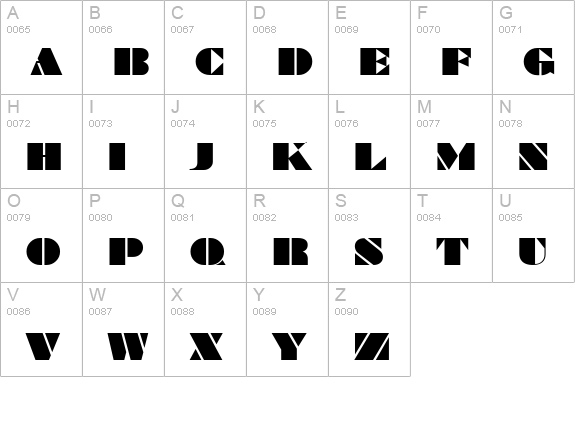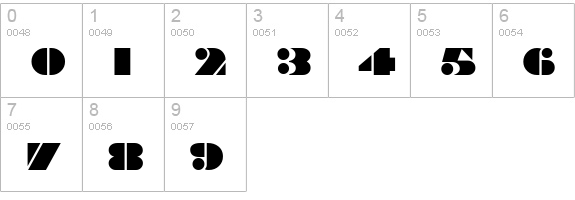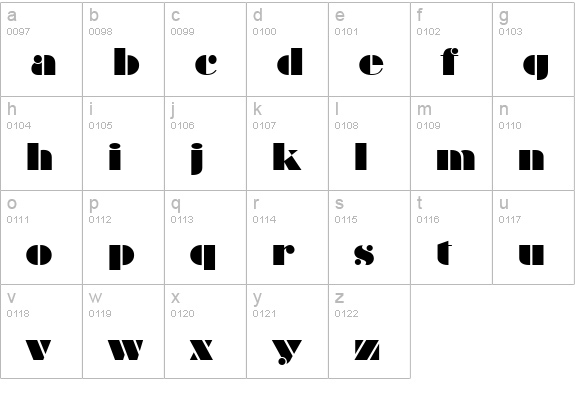
Bravado Regular is the standard, neutral variant in the Bravado typeface family \xE2\x80\x94 well suited to general body text, paragraphs, and standard typographic work.
Bravado Regular font exudes confidence and boldness with its strong, clean lines and classic design. This versatile typeface is perfect for a wide range of projects, from branding and advertising to editorial and web design. Its timeless appeal and readability make it a popular choice for designers seeking a font that commands attention. Best of all, Bravado Regular is free to download at FontsMarket.com. This means you can easily access this high-quality font and incorporate it into your designs without any cost. Don't miss out on the opportunity to enhance your projects with the sleek and professional look of Bravado Regular font. Download it today and take your designs to the next level!